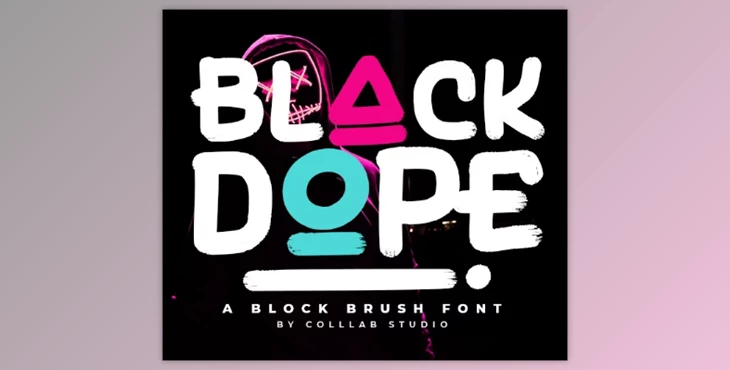
Black Dope – A Brush Font:
Get into the scene confidently with the grace of a face that's staying. Don't be shy, show off your show.
Black Dope is a brush font with a swagger and is ready to create its own way through your designs. It's full of style and swagger Black Dope is a versatile font with all the features you'd want in a font.
It's great for bold, big headlines and titles. It's got all the curves you'd like in a font for display and an extra dash of elegance. It's also got over 350 glyphs. You can have fun and bring Black Dope anywhere you'd like.
What's more intriguing? The font support 67 languages, ( Afrikaans, Albanian, Asu, Basque, Bemba, Bena, Breton, Catalan, China, Cornish, Danish, Dutch, English, Filipino, French, Friulian, Galician, German, Gusii, Indonesian, Irish, Italian, Kabuverdianu, Kalenjin, Kinyarwanda, Luo, Luxembourgish, Luyia, Machame, Makhuwa-Meetto, Makonde, Malagasy, Manx, Morisyen, North Ndebele, Norwegian Bokmal, Norwegian Nynorsk, Nyankole, Oromo, Portuguese, Quechua, Romansh, Rombo, Rundi, Rwa, Samburu, Sango, Sangu, Scottish Gaelic, Sena, Shambala, Shona, Soga, Somali, Spanish, Swahili, Swedish, Swiss GermanTaita, Teso, Uzbek (Latin), Volapuk, Vunjo, Zulu)